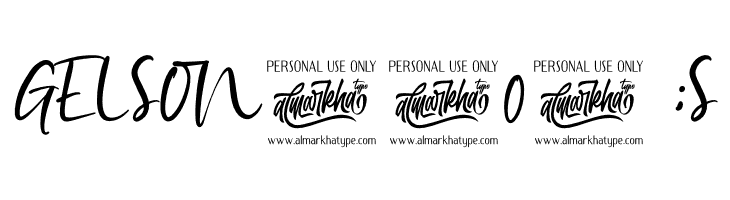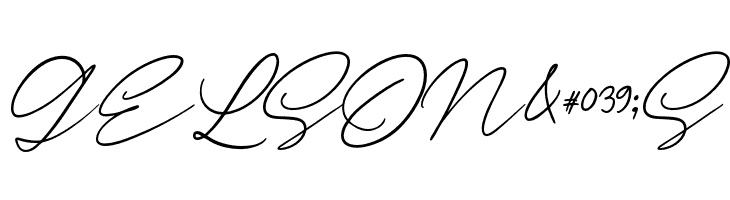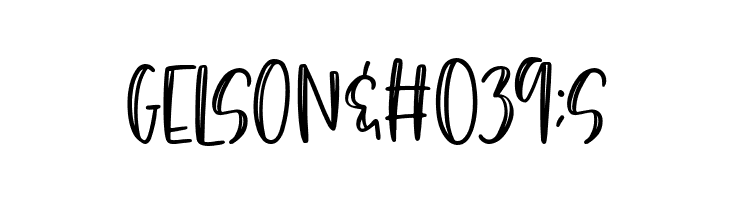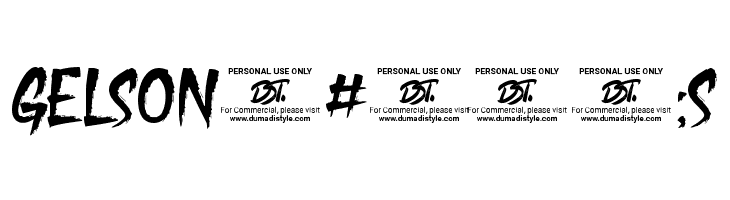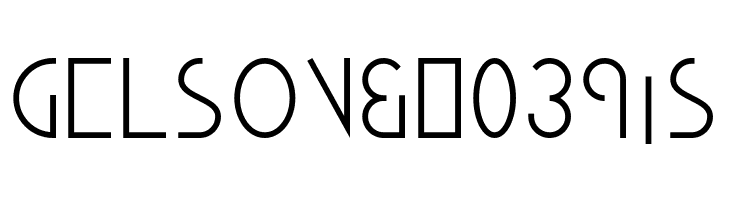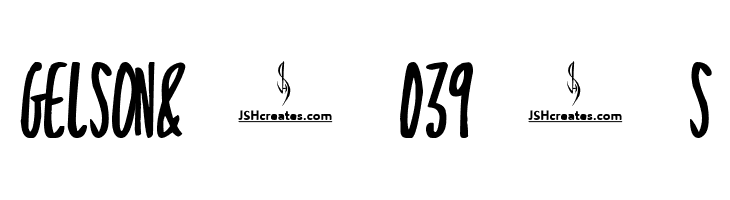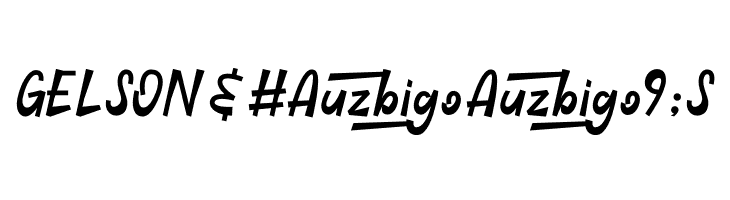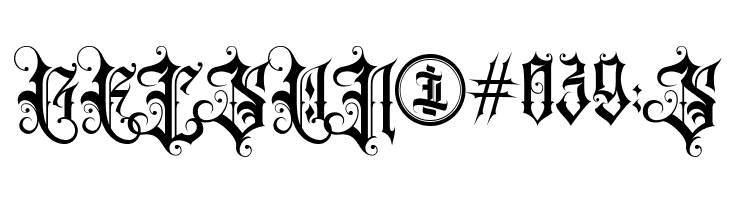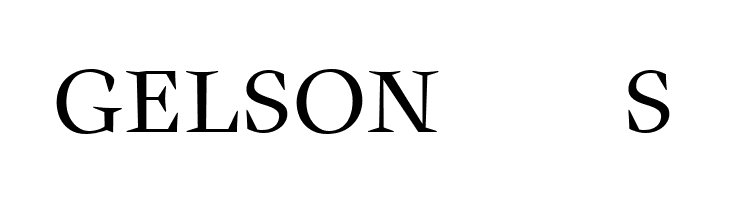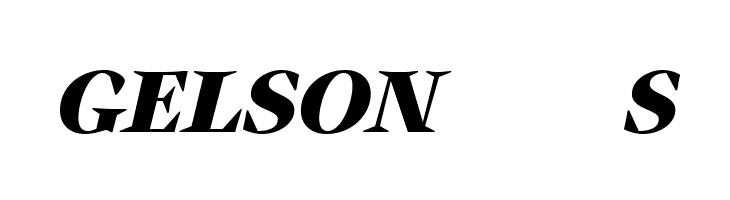
A playful, handwritten font with bold, irregular strokes and a casual vibe.
A playful, handwritten font with bold, flowing strokes and a dynamic slant.
Playful handwritten font with a whimsical style.
A playful, casual handwritten font with fluid, slightly irregular strokes.
A graceful, cursive script font with a natural handwriting style.
A graceful and elegant script font with flowing cursive letterforms.
A lively and expressive handwritten font with dynamic strokes.
A lively and expressive handwritten font with fluid, dynamic strokes.
A bold, decorative font with sharp, angular designs and intricate detailing.
An elegant, cursive font with a calligraphic style and fluid character connections.
A classic serif font with elegant thin strokes and pronounced serifs.
A refined, light, italic serif font with elegant slanted characters.
A classic serif font with sharp serifs and moderate contrast, blending traditional and modern elements.
A classic italic serif font with elegant, flowing lines and moderate contrast.
A classic serif font with bold, elegant curves and medium weight.
An elegant serif font with a classic italic slant and moderate stroke contrast.
A bold serif font with sharp serifs and strong vertical stress.
A bold, italic serif font with strong strokes and pronounced serifs.
A bold, serif font with strong strokes and a classic yet modern aesthetic.
A bold, italic serif font with high contrast and sharp serifs.
A bold, italic serif font with a dynamic and authoritative style.
A bold, high-contrast serif font with a dramatic and elegant style.
A bold, italic serif font with a dynamic and sophisticated style.
A bold serif font with high contrast and sharp serifs, ideal for impactful headlines.
Elegant italic serif font with a classic and sophisticated style.
A refined, elegant serif font with a light, italicized style.
A classic serif font with elegant, refined letterforms and delicate serifs.
A classic serif font with an elegant italic slant and moderate contrast.
A classic serif font with bold strokes and sharp serifs, ideal for formal use.
A classic serif font with elegant, sharp serifs and moderate contrast, ideal for traditional and formal designs.
A playful, slanted handwritten font with bold, dynamic characters.
A playful, handwritten-style font with bold, dynamic strokes.
A geometric, futuristic font with clean lines and sharp angles.
A bold, brush-style font with sharp, jagged edges and an energetic flow.